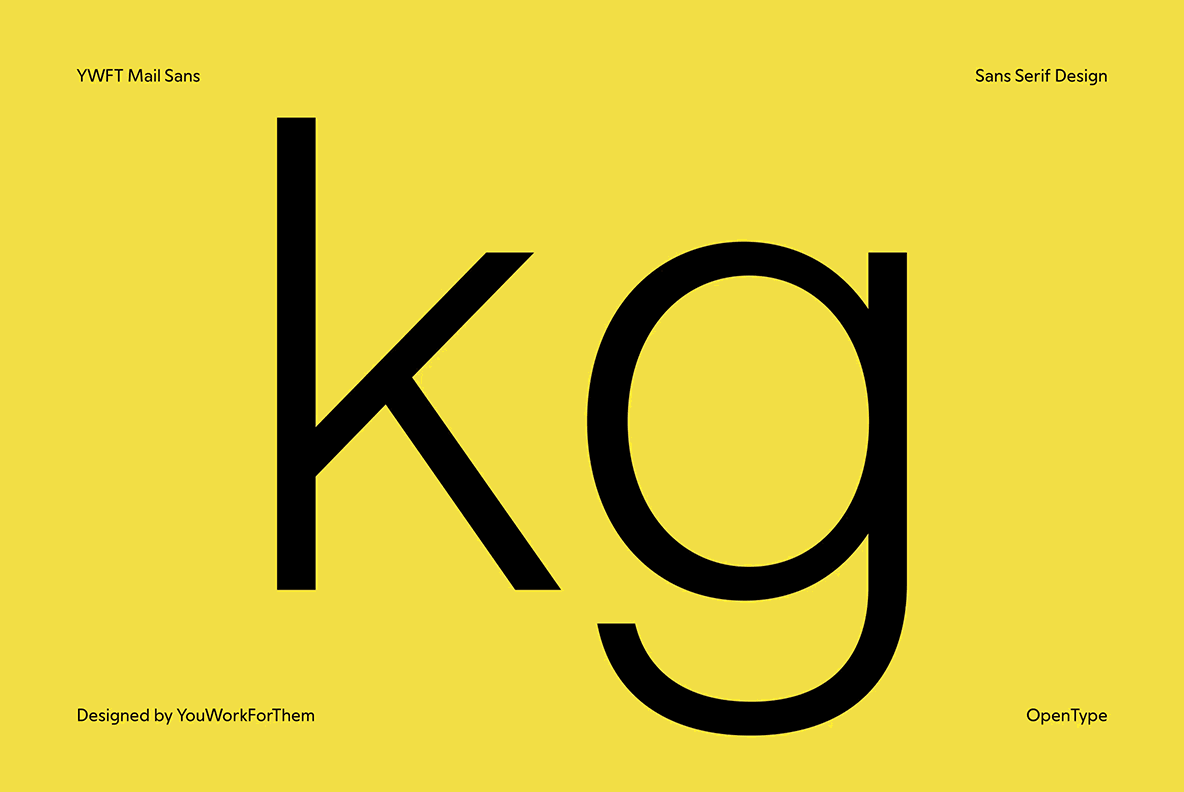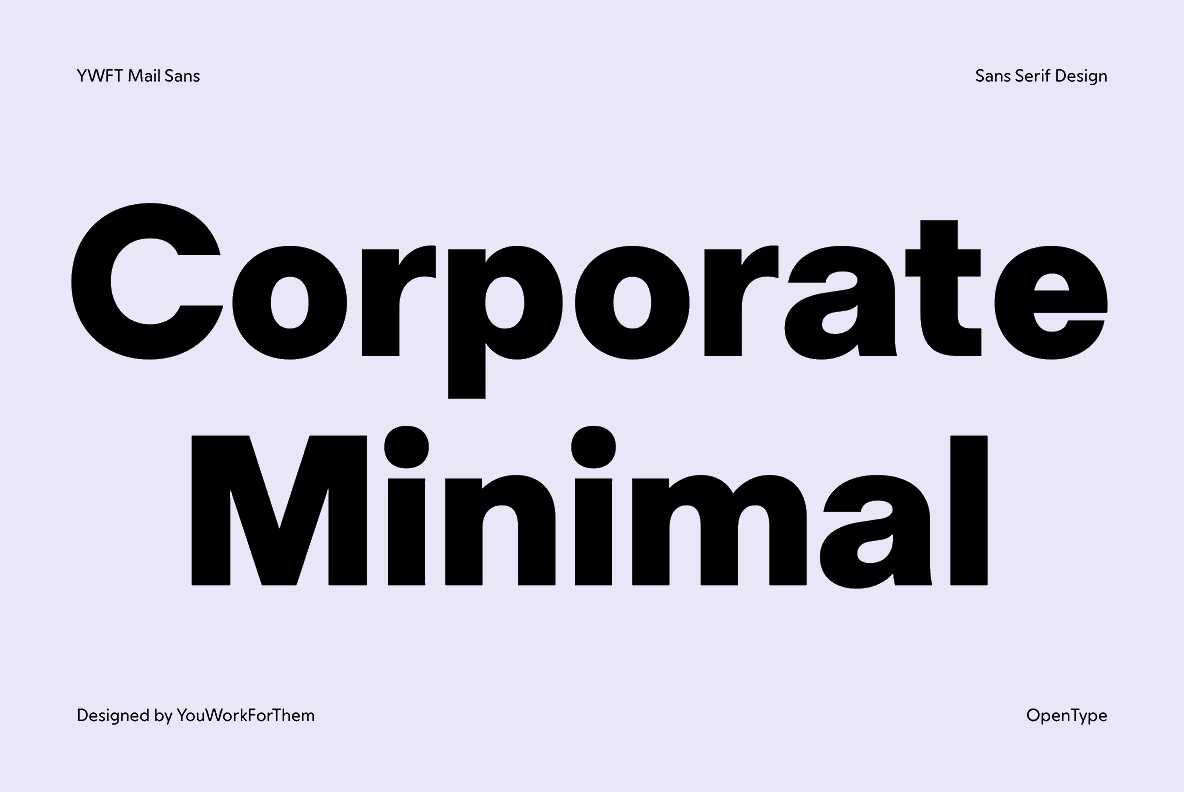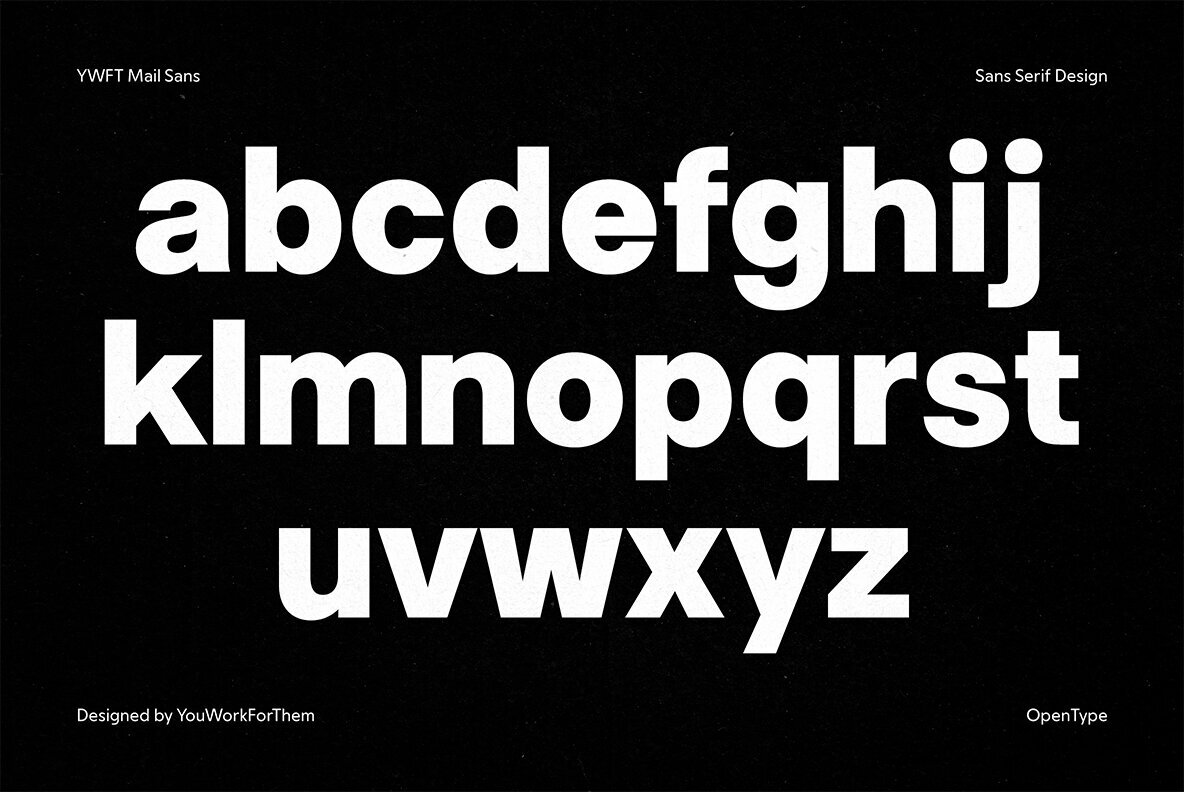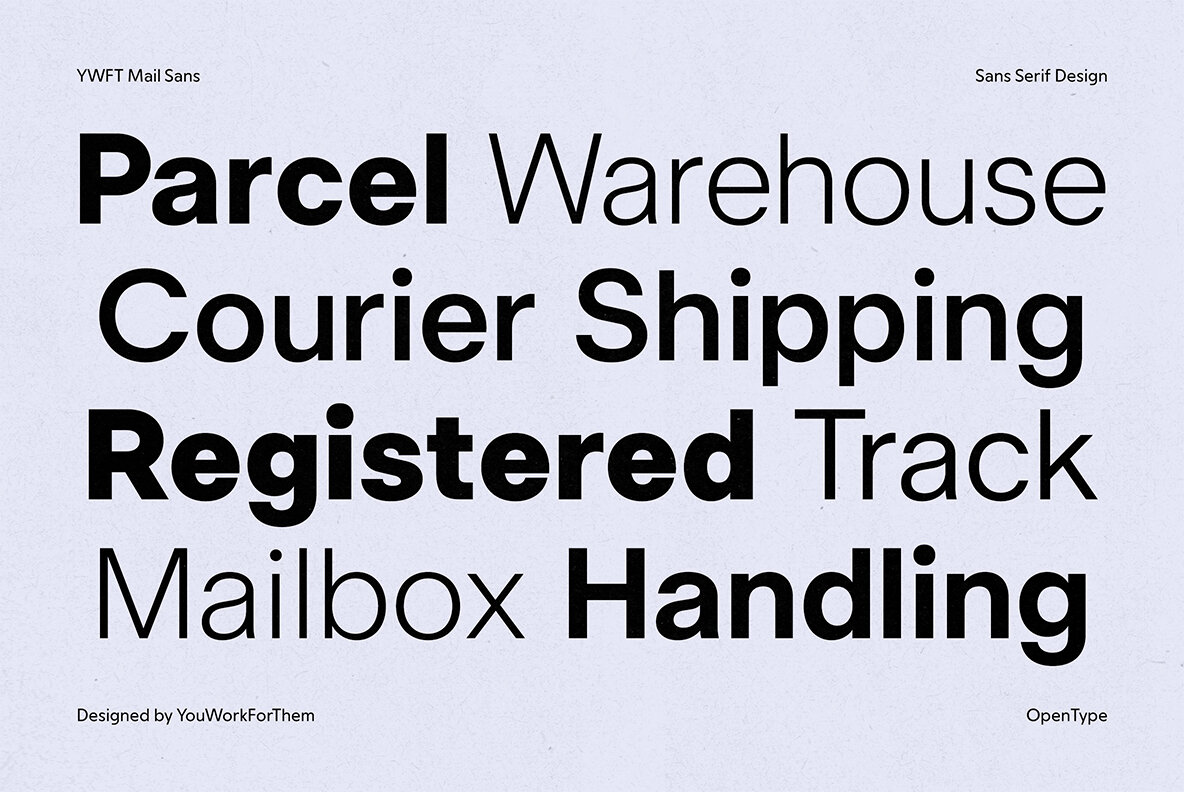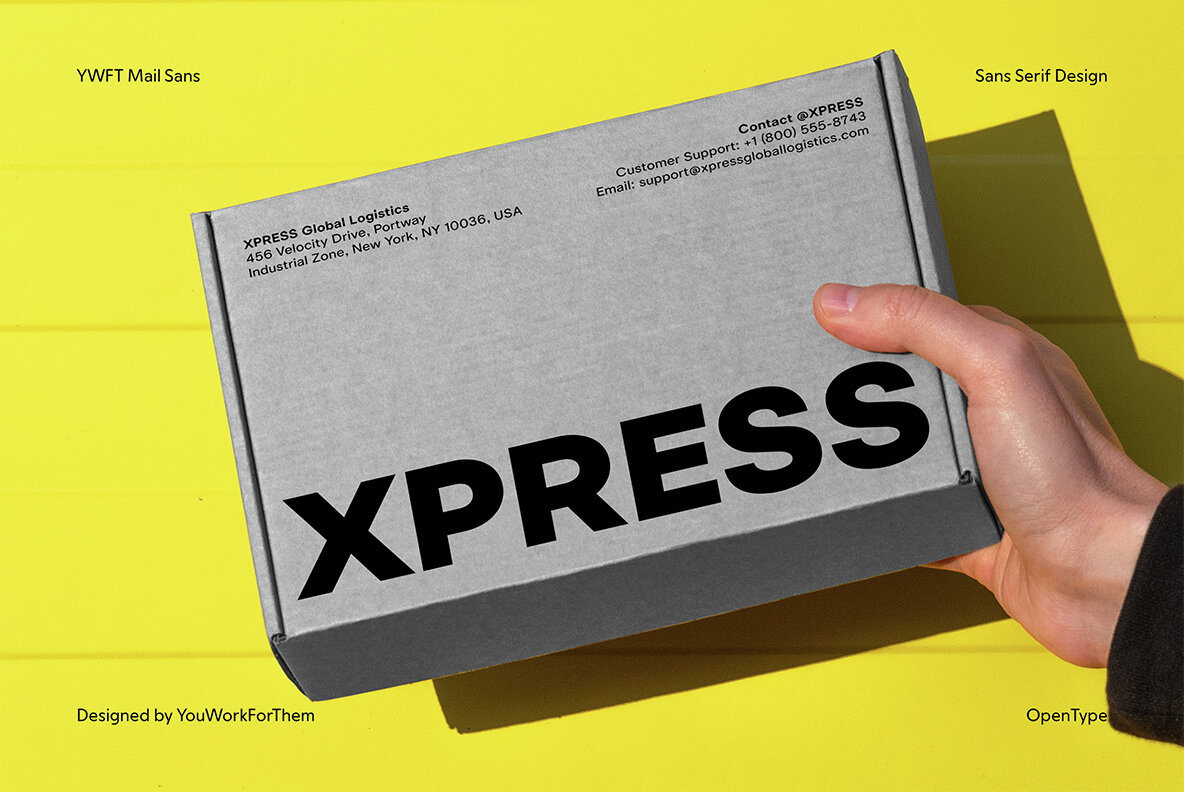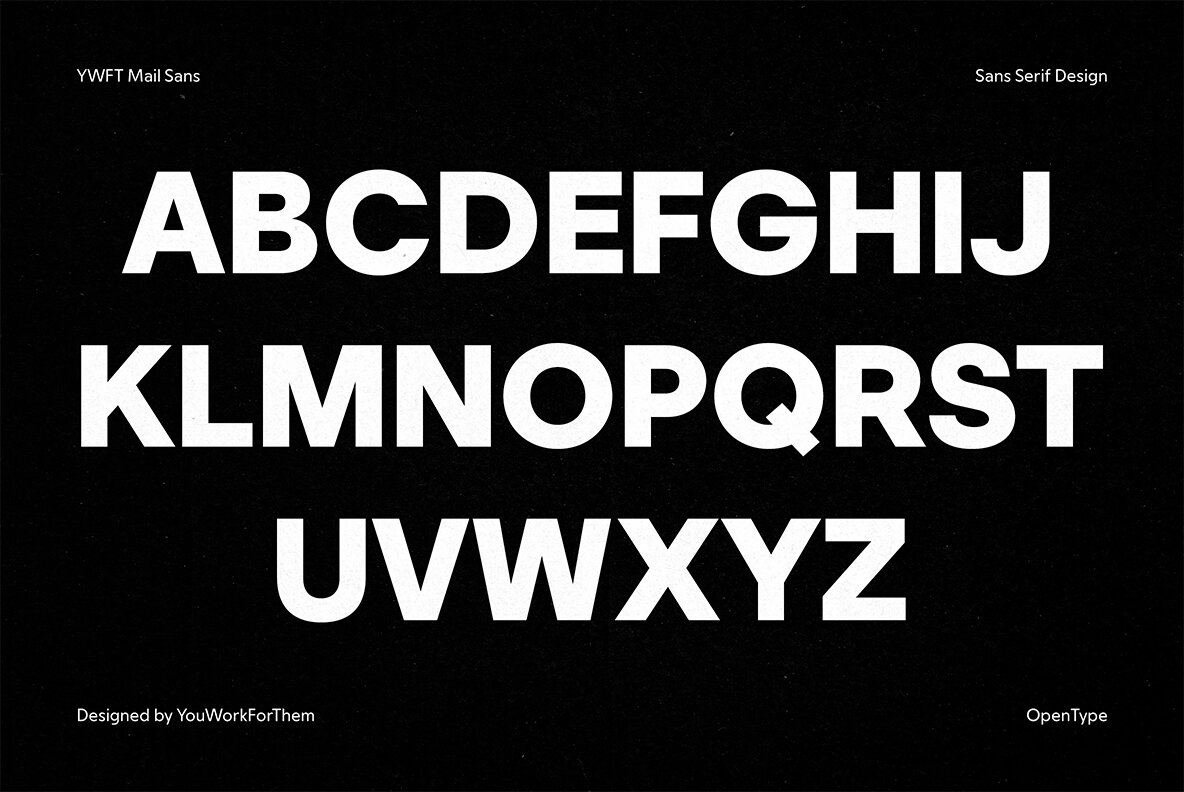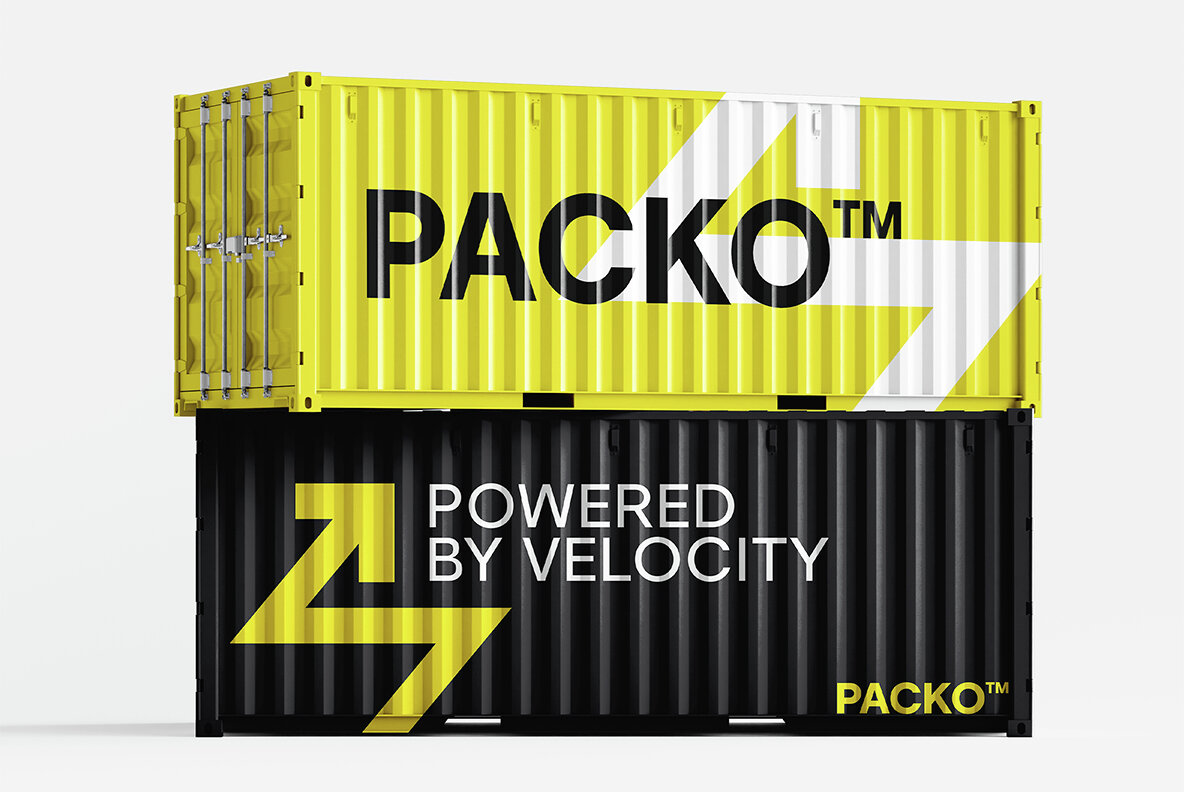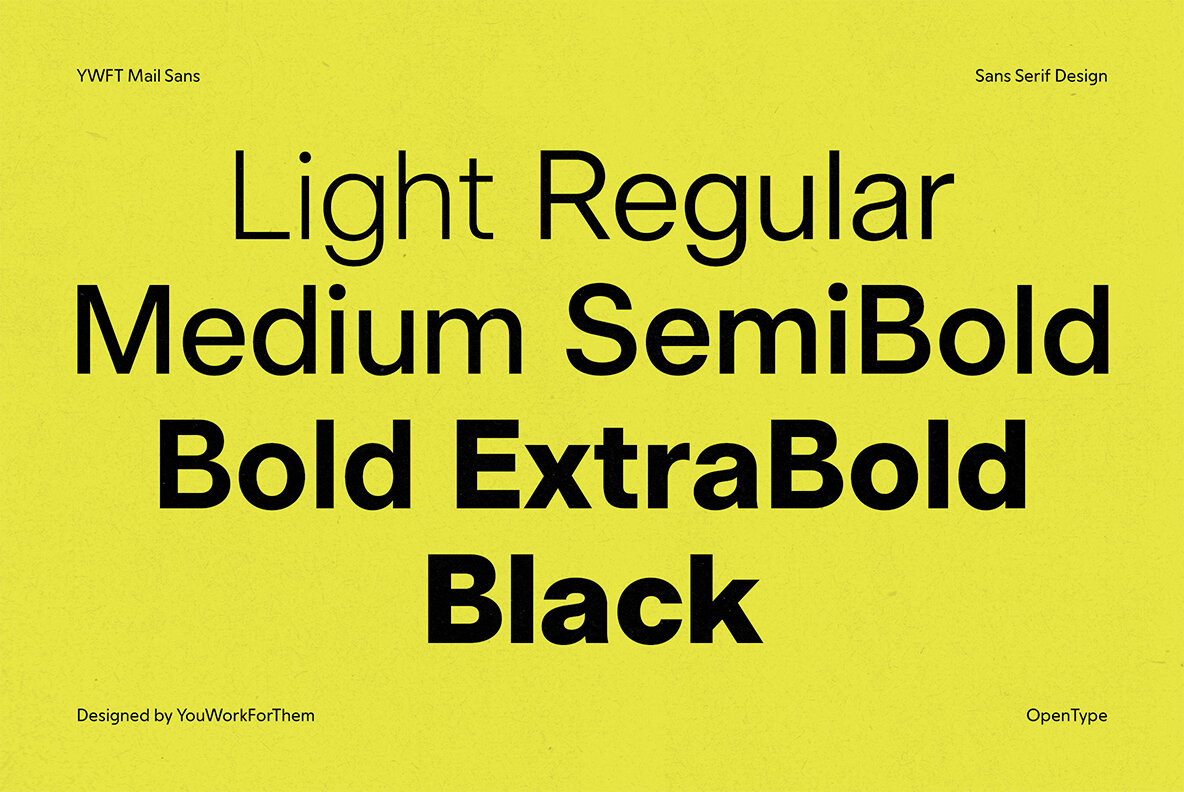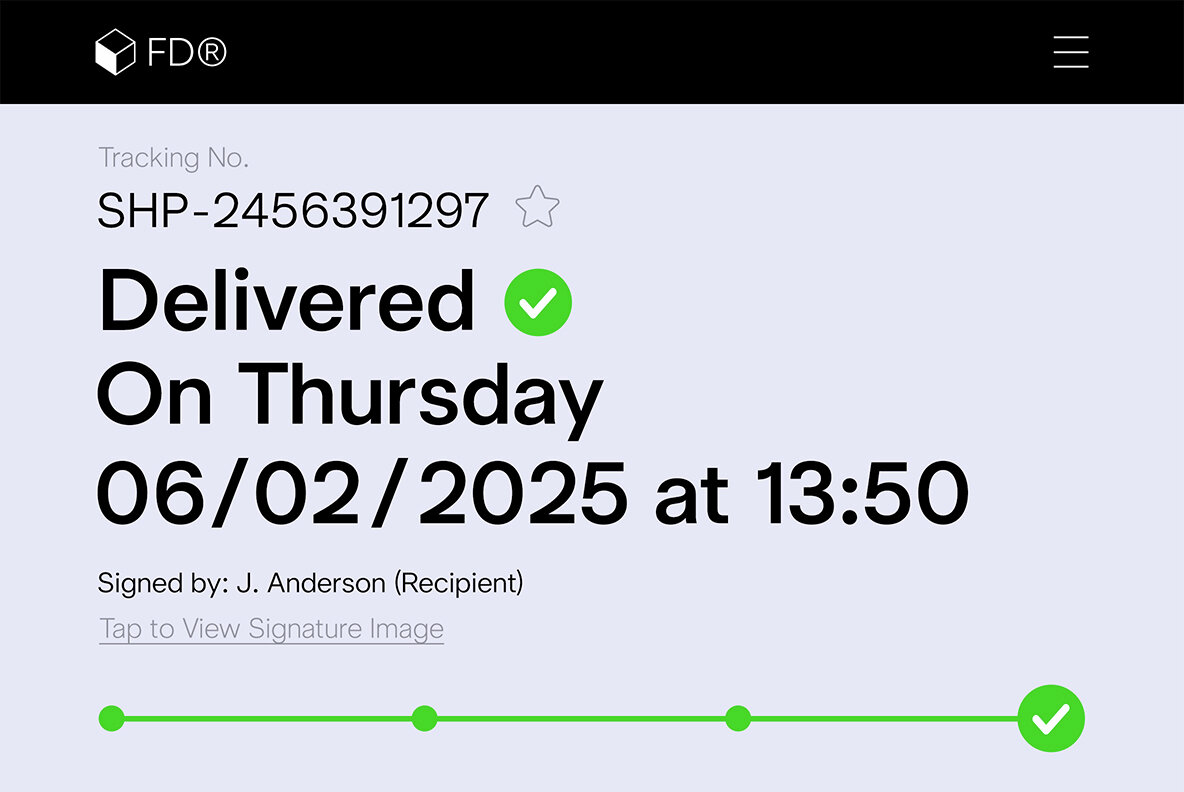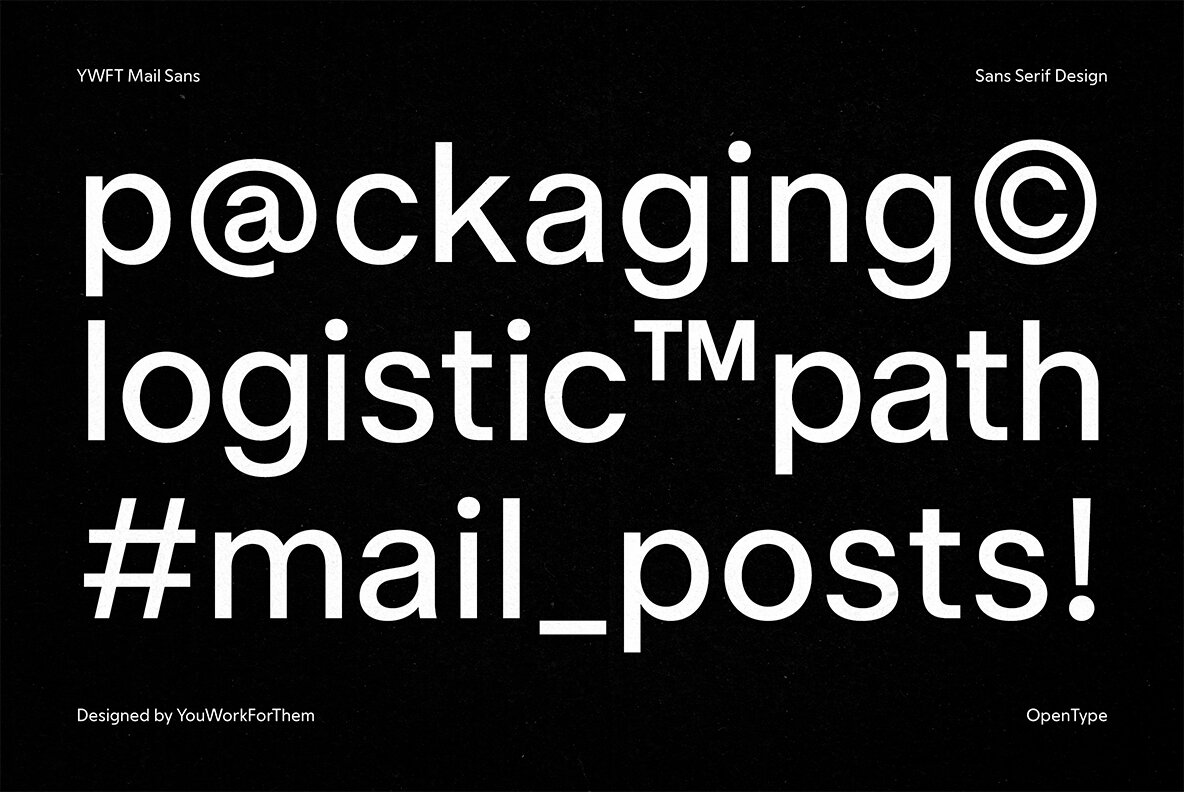
YWFT Mail Sans Font
YWFT Mail Sans is a modern sans-serif typeface crafted for today’s digital and industrial design needs. With a strong technical presence and crisp, geometric forms, this typeface finds its perfect application in packaging, shipping, and logistics branding. Drawing inspiration from the utilitarian clarity of typefaces seen on global shipping labels and courier signage, it combines functionality with design elegance. Visually, YWFT Mail Sans echoes the utilitarian spirit of classic sans-serifs such as Helvetica and Akzidenz-Grotesk, with a contemporary edge. The attached previews highlight its structured, square forms and authoritative character sets, making it ideal for signage, labels, and interfaces where clarity is paramount. This font family offers a comprehensive range of styles and features to meet the needs of modern creatives: 7 Weights: From Light to Black, providing versatility for headlines, subheads, and captions. YWFT Mail Sans is designed for high legibility in both print and digital contexts, making it the perfect choice for applications such as: A free demo download is available, allowing designers to test its power and adaptability before purchase. Additional products used for slideshow images:YWFT Mail Sans Font: A Bold Step into Modern Utility
Inspired by Technical Classics
A Complete Toolset for Designers
Perfect for Packaging & Digital Interfaces